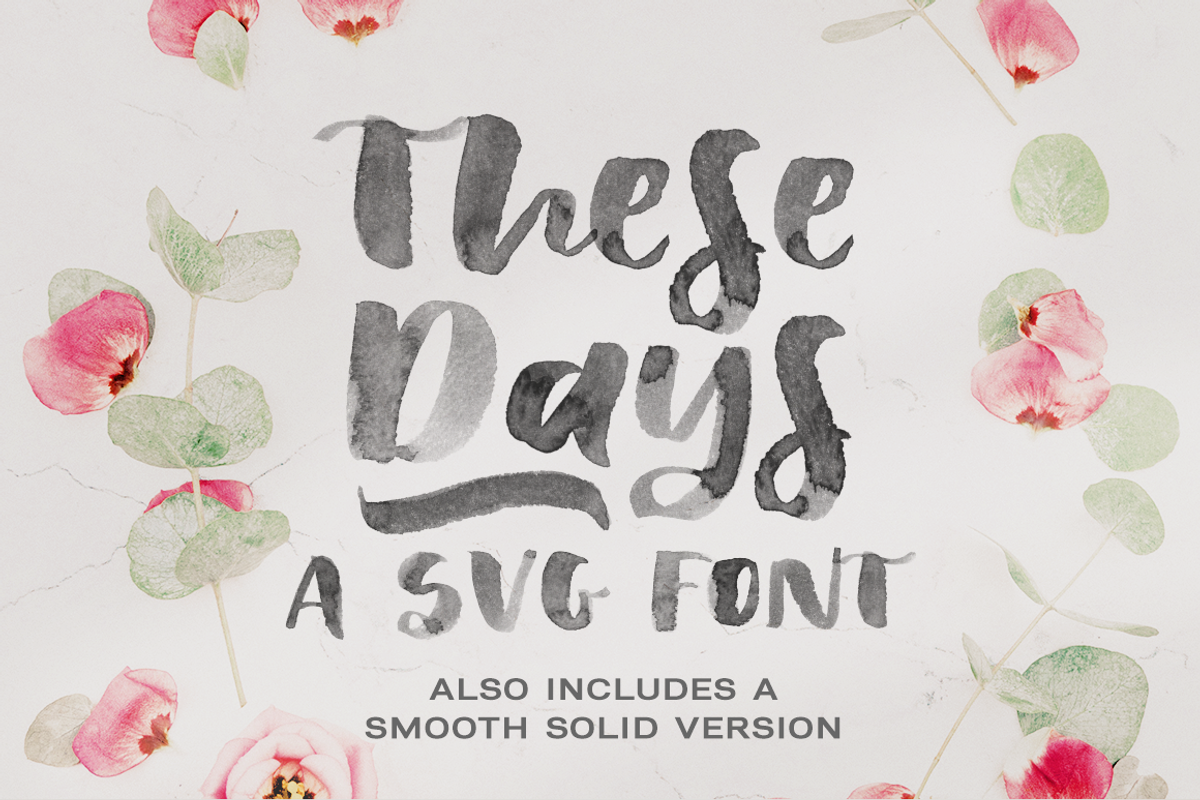
You must purchase this font for commercial use. However, you can download These Days SVG Brush Font Free Download for testing purposes. These Days is a bold, artistic brush font with a dynamic, hand-painted texture that gives your designs an expressive and creative flair. Perfect for posters, logos, headlines, social media posts, and other designs that need a bold and unique style, this SVG font captures the energy and individuality of hand-drawn brush strokes.
With its high-contrast, expressive strokes, These Days SVG Brush Font adds a raw, artistic vibe to your projects, making it ideal for creative brands, art events, or any project that requires a personal, energetic touch. The SVG format allows you to maintain the rich texture of the brush strokes, giving your text a true hand-crafted feel.